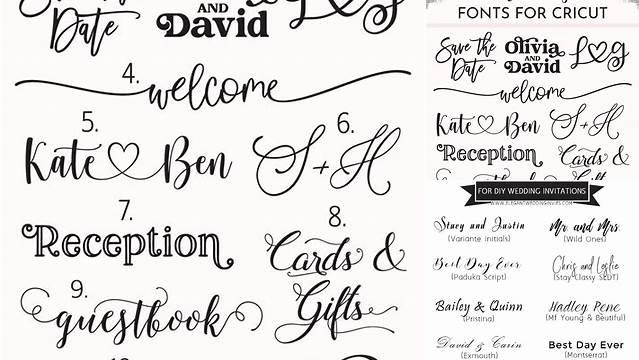
Cricut Wedding Fonts: Best Picks For Invitations
Planning a wedding is a whirlwind of excitement and detail, and when it comes to creating your own wedding invitations, the font you choose can make all the difference. If you're using a Cricut machine, you're in luck! Cricut offers a fantastic range of fonts perfect for that elegant, personal touch. Finding the best Cricut writing fonts for wedding invitations can transform your DIY projects from simple to stunning. Let's dive in and explore some of the top font choices, how to use them effectively, and tips for achieving professional-looking results.
Why Font Choice Matters for Wedding Invitations
Your wedding invitations are more than just pieces of paper; they're the first glimpse your guests get into your special day. The font you select sets the tone and reflects your style. A well-chosen font can communicate sophistication, romance, and personality. Think about it: Are you aiming for a classic and timeless feel or a modern and whimsical vibe? The font is the key! Font selection is where you create that first impression. For wedding invitations, you will use writing fonts and other decorative fonts. Using a Cricut machine, you'll be able to customize and make unique invitations.
Selecting the right font ensures that your invitations are both aesthetically pleasing and easy to read. This balance is important. A beautiful, but illegible font will frustrate your guests. Consider the overall design of your invitation. It's essential to choose fonts that complement each other. Pairing a script font for names with a clean sans-serif font for the body text can create a harmonious and professional look. You want your invitations to reflect your wedding theme. So, choose fonts that align with your vision.
Remember that the fonts you choose will be used throughout your wedding stationery, from save-the-dates to place cards. Creating a cohesive look with consistent fonts can make your overall wedding aesthetic really shine. Think about all the little things that will add to the experience, such as your wedding website, or hashtag. Consistency and unity are important. If you're DIY-ing your invitations using a Cricut, you have the freedom to experiment with various fonts. You can see firsthand how they look together before committing to a final design. This flexibility is a great advantage of using a Cricut for your wedding stationery. So, don't be afraid to get creative and try out different combinations. After all, this is your special day, and your invitations should reflect your unique style. When choosing fonts, consider your budget. Some fonts are free. Others might require a one-time purchase. You may already have a Cricut Access subscription. This subscription gives you access to many fonts and designs.
Top Cricut Writing Fonts for Wedding Invitations
Let's get down to the good stuff! Here are some of the best Cricut writing fonts that are perfect for wedding invitations.
Script Fonts: Elegance and Romance
Script fonts add a touch of elegance and romance. They're ideal for names, headings, and special details. Here are a few popular choices:
- Brush Script MT: This is a classic choice. It is known for its beautiful, flowing script. It is a versatile font that works well in many wedding invitation styles. It is easy to read, with slightly slanted letters.
- Samantha Font: Samantha is a stunning, detailed script font with many swashes and alternative characters. It's perfect for adding a touch of luxury. The delicate curves of the letters make it truly unique. This font can be used for the names of the bride and groom.
- Black Jack: This is a bold and modern script font. It's perfect if you want to make a statement. The unique look of the letterforms is bold and stands out.
- Billion Dreams: A more casual script with a handwritten feel. It is great for a less formal wedding. It has a playful yet still romantic look. The soft curves and slight imperfections give it a natural, approachable feel.
- Playlist Script: Playlist Script is another excellent choice for invitations. It has a stylish and modern feel. It is perfect for names and important details. This font has a balance of elegance and readability, with clear, flowing lines.
Serif Fonts: Classic and Timeless
Serif fonts are traditional, often used for the body text of invitations. They add a touch of formality and are easy to read. Some great options include:
- Times New Roman: A classic choice. This font is easy to read and always looks good. It is a safe choice. It works well for the body of your invitations. It ensures readability.
- Garamond: Known for its elegance and readability. Garamond is a fantastic serif font, especially for longer text. It has a refined and timeless feel, making it a perfect choice for classic weddings. The letterforms are easy on the eyes.
- Playfair Display: A beautiful, high-contrast serif font, perfect for headlines and special details. It's a modern take on a classic style. It gives an element of sophistication.
- Georgia: Georgia is a versatile serif font that is easy to read on screen. It is suitable for digital invitations or print. It is a good choice for readability.
Sans-Serif Fonts: Modern and Clean
Sans-serif fonts are a great choice for a modern or minimalist invitation. They offer clean lines and a contemporary feel. Here are some recommendations:
- Helvetica: A classic and incredibly versatile font, known for its clarity and simplicity. Helvetica is perfect for any wedding theme. It will ensure readability. It's a safe choice.
- Arial: Another commonly used sans-serif font. Arial is another clean and simple option. It is often used for the body text. Arial provides great legibility.
Choosing the best Cricut writing fonts for wedding invitations is a fun process. Cricut provides a wide range of fonts to bring your vision to life. Remember to consider your wedding's overall style, the readability of your fonts, and how the fonts complement each other. By following these tips, you can create wedding invitations. They will impress your guests and make your special day even more memorable. Enjoy the process, get creative, and make your wedding invitations a true reflection of your love story!